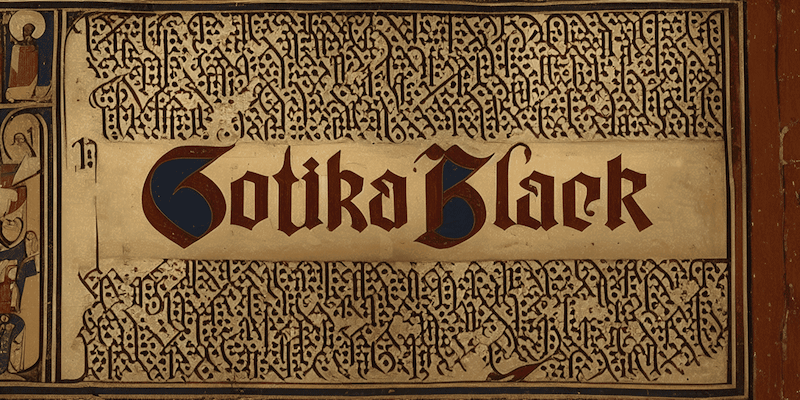
Preview and download Gotika Black Font. Created by Måns Grebäck in Gothic Medieval styles with Free for personal use license.
NOTE: This font is for PERSONAL USE ONLY! To purchase a commercial license, visit: http://mn.sg/gotika Gotika Black is a blackletter font by Mans Greback that masterfully blends Gothic influences with a bold, street-inspired edge. Taking inspiration from medieval documents, Mans hand-drew the letters and then used an AI model to refine and design the complete typeface. For questions, please visit www.mansgreback.com/faq |